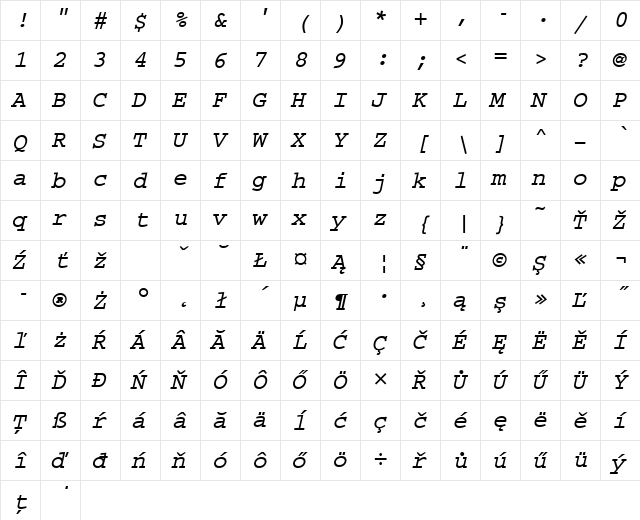
CourierMEE Bold Italic Font Preview
Design Context for CourierMEE Typeface
CourierMEE brings the precise, column-aligned rhythm of monospaced typography to designs that value technical clarity and systematic order. The slanted form adds forward momentum and visual energy. Its bold stroke weight gives it real presence on the page.
Well-suited to data-driven dashboards, coding tutorials, and any design that wants to reference the world of programming.
Pro Tip: Use CourierMEE with slightly increased line-height for extended reading — fixed-width spacing can feel dense in longer passages without extra breathing room.